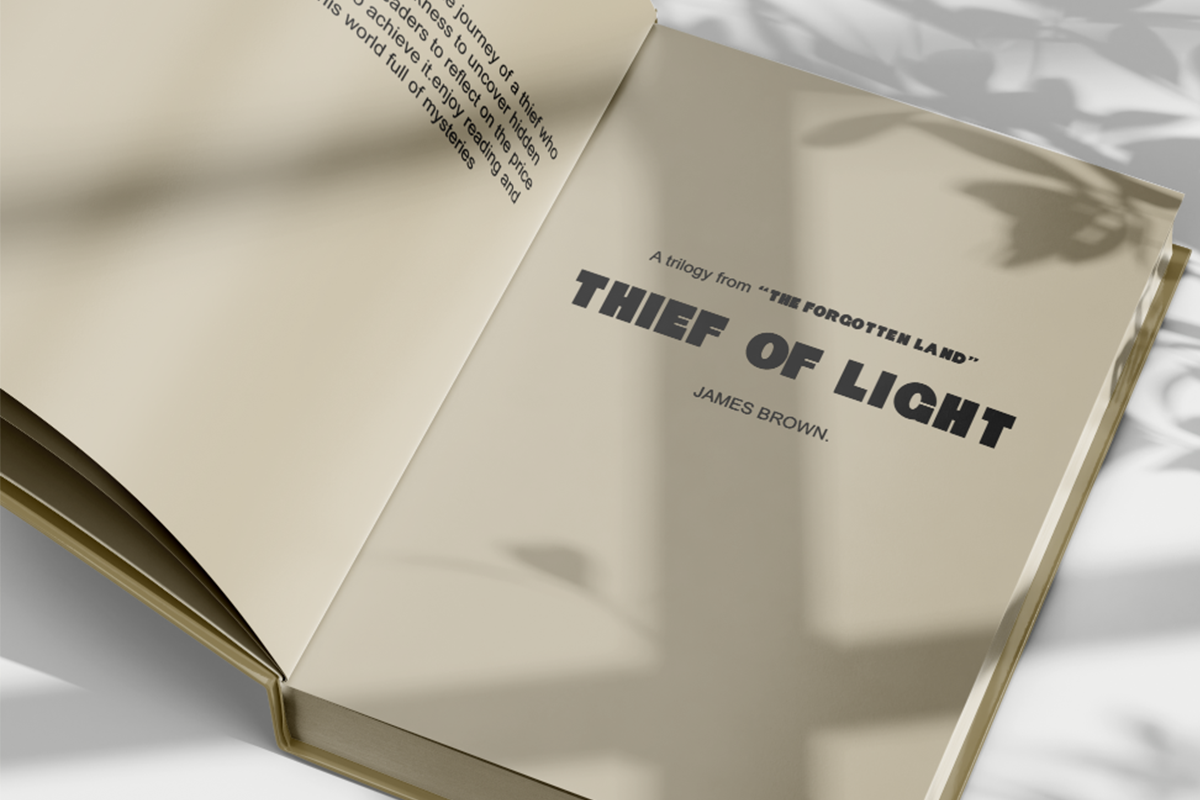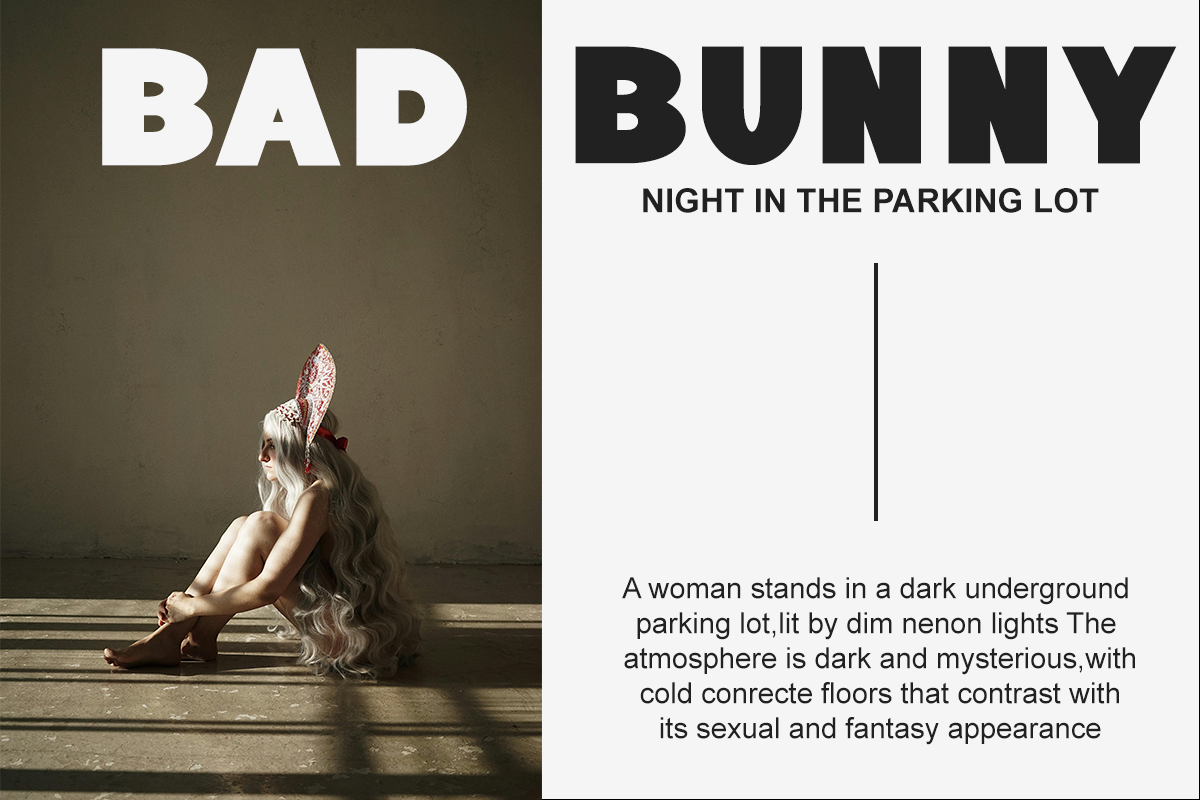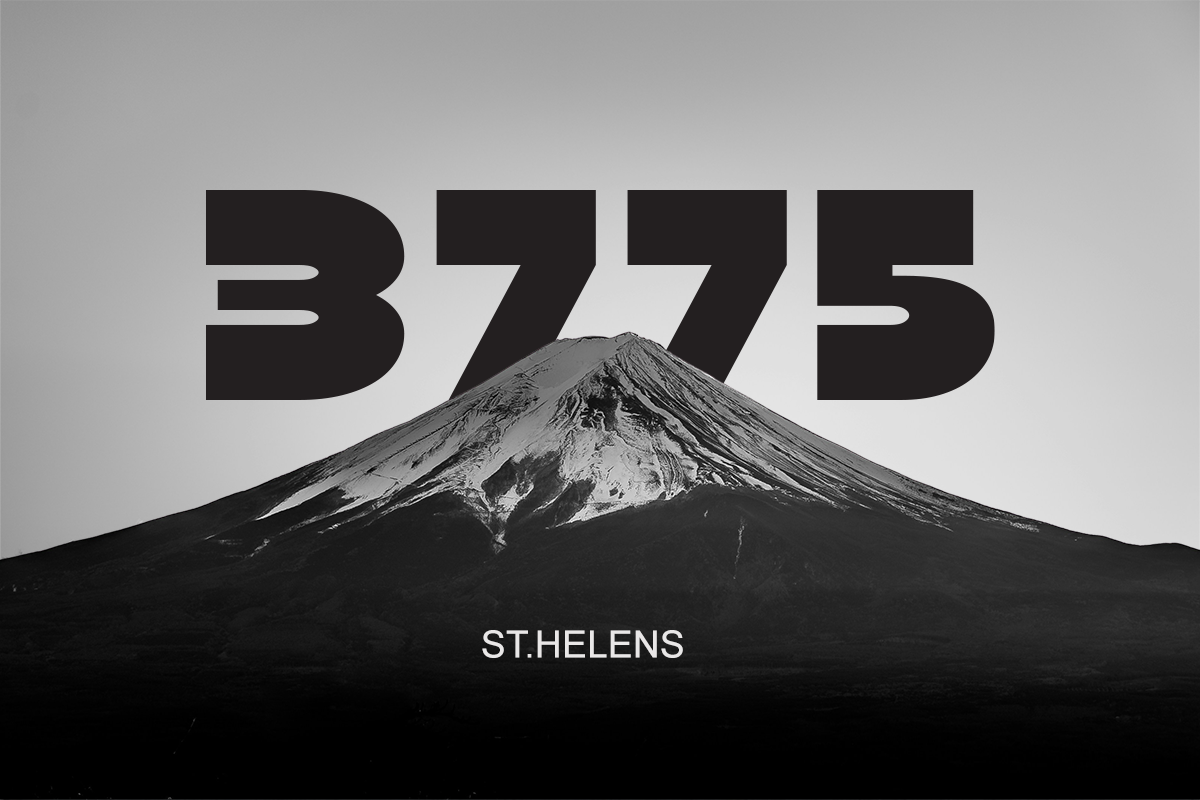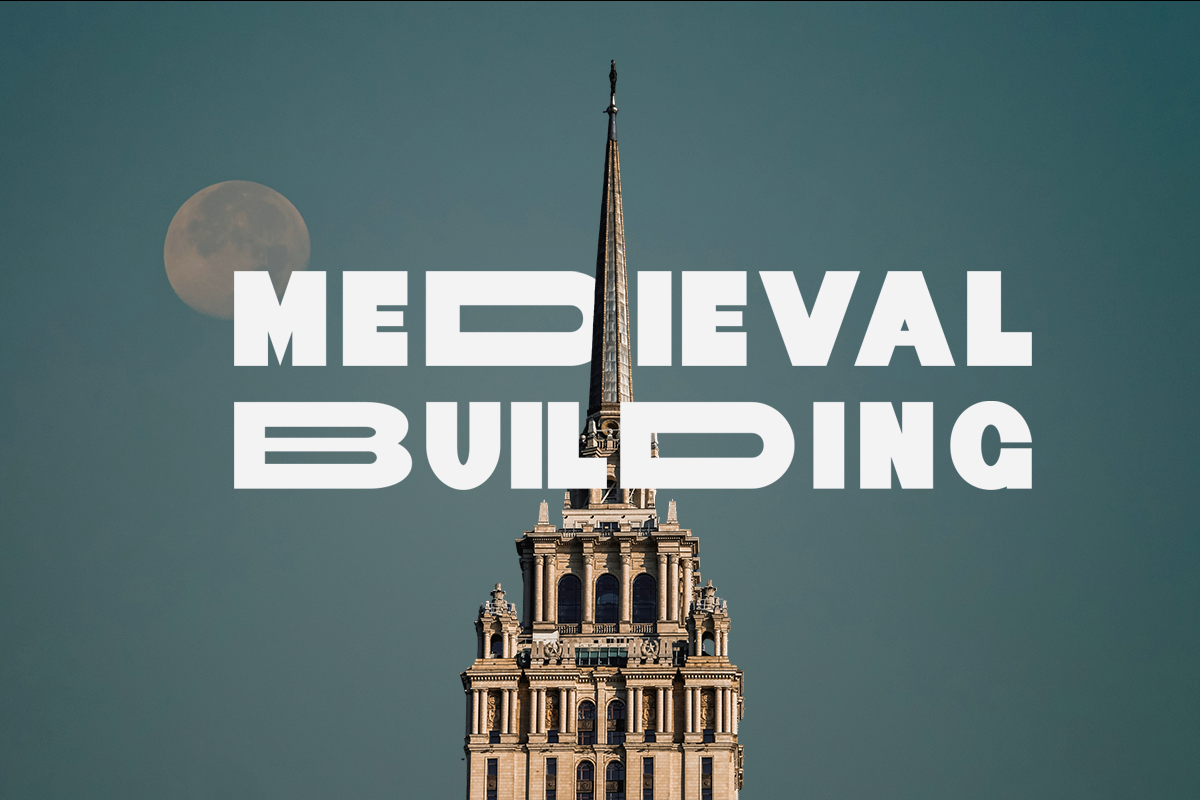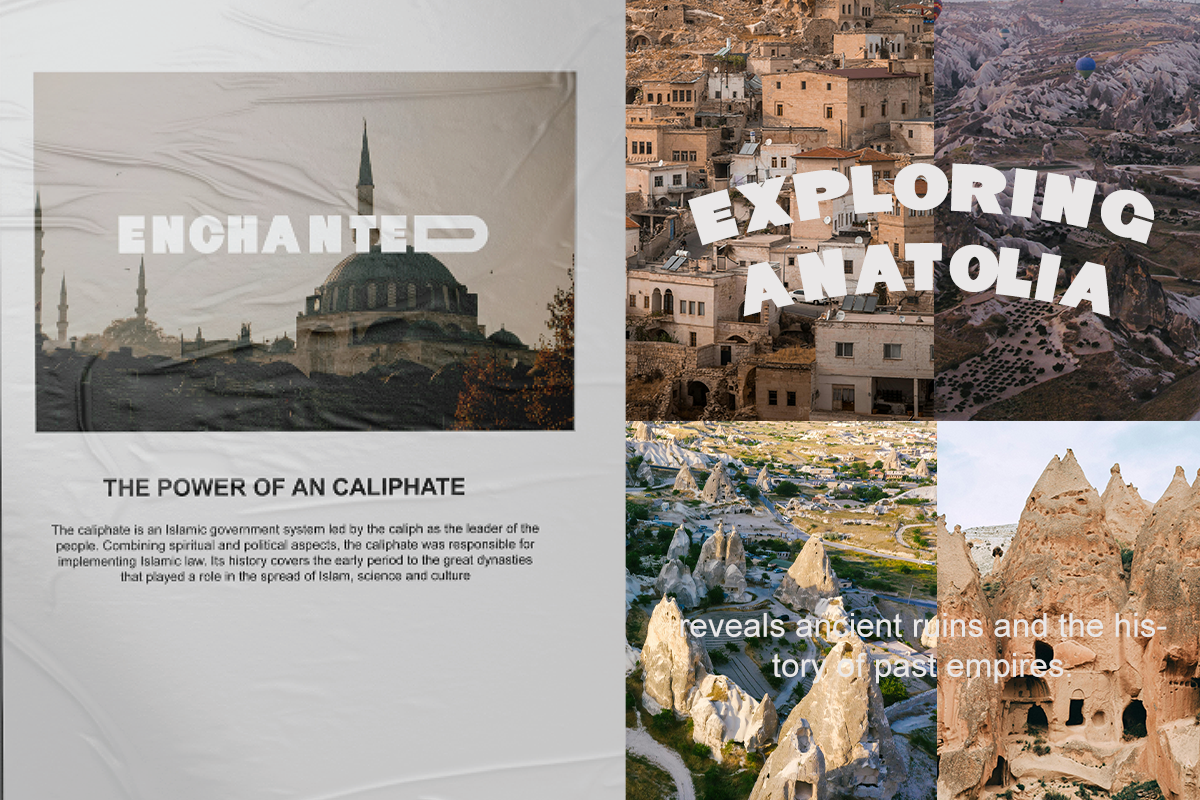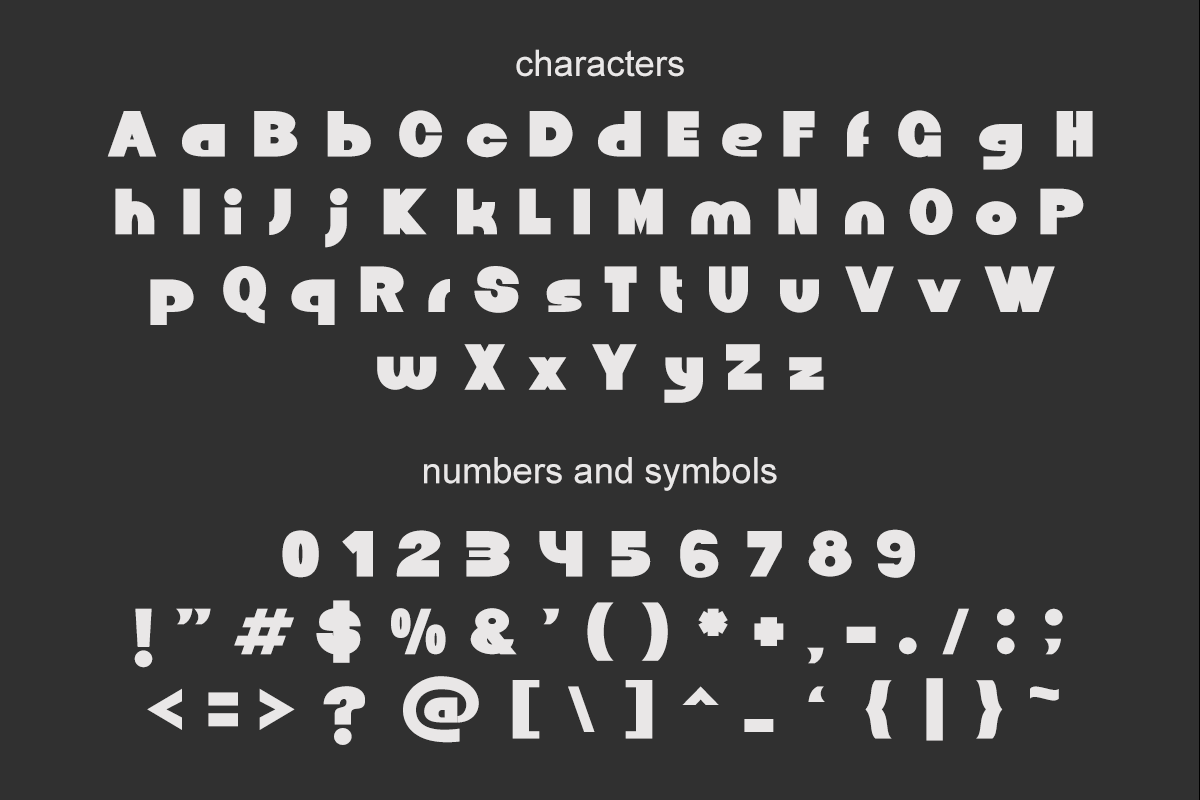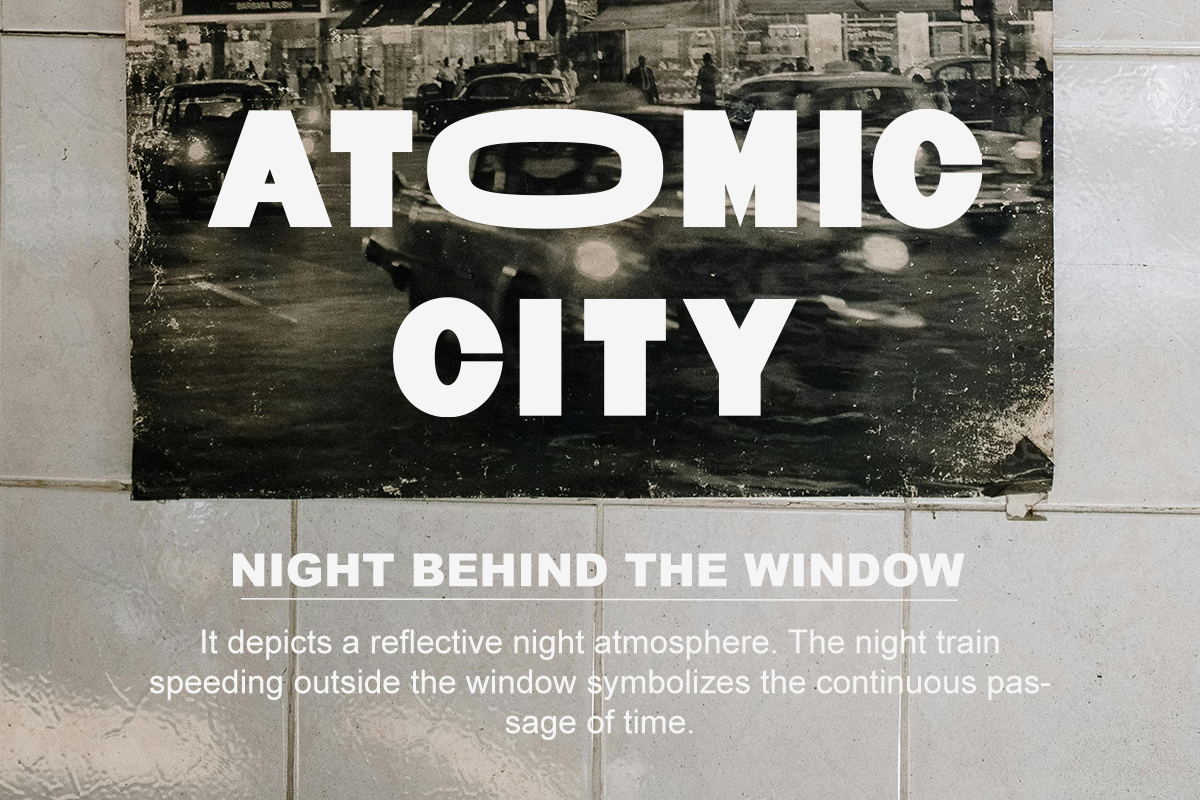
Dalberto – Modern Sans Serif Typefac
Dalberto is a bold modern sans serif font designed with geometric precision and industrial strength. Featuring strong shapes, clean lines, and futuristic details, Dalberto is built to make a powerful statement in any creative project.
Perfect for logos, sports branding, technology, posters, and bold editorial headlines, this typeface combines modern aesthetics with timeless readability.
✨ Highlights
Bold sans serif with modern geometric design
Strong, confident shapes for impactful visuals
Futuristic and industrial-inspired details
Perfect readability across print and digital media
🎯 Best Uses
Logo & Branding – bold and memorable identities
Sports & Fitness – strong and energetic typography
Technology & Startups – futuristic and modern branding
Posters & Advertising – impactful and eye-catching statements
Editorial Headlines – bold typography for print and magazines
Merchandise & Apparel – strong designs for clothing and accessories
Uppercase & Lowercase Letters
Multilingual Support – extended character coverage
Bring Dalberto into your design toolkit to create powerful, modern, and bold typography that demands attention.